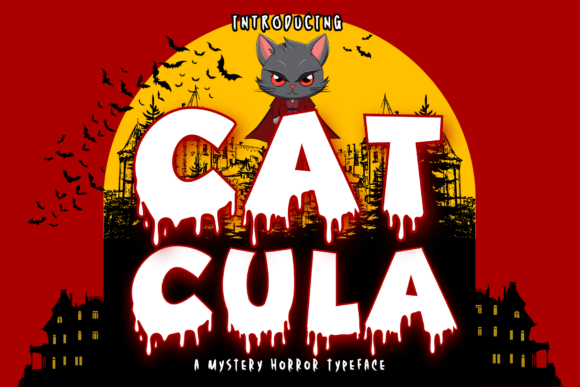
Get Ready to Cast a Spell with the Catcula Font
Have you ever been in the midst of a creative project, pouring over designs and color schemes, only to feel like something’s missing? That’s when the magic happens – you stumble upon the perfect font to bring your vision to life. For designers looking to add a touch of whimsy to their Halloween designs or October-themed celebrations, the Catcula Font is a game-changer. Crafted expressly for the spooky season, this enchanting font is designed to exude a distinctively festive spirit.
As a designer, you know how much a font can elevate your work. That’s why the Catcula Font is a valuable addition to your toolkit. Its playful allure and mysterious charm will beautifully influence the end result, transforming your designs into true showstoppers. Whether you’re working on a haunted house invitation or a spooky-themed social media post, the Catcula Font is the perfect gateway to unleash your creativity.
Catcula Font Key Features
- Character Set: This font features a comprehensive character set, including uppercase and lowercase letters, numbers, punctuation marks, and a variety of special characters, making it suitable for diverse language requirements.
- Unique Characteristics: The Catcula Font boasts a distinctive, modern design with a touch of elegance, making it perfect for use in high-end branding, luxury products, and sophisticated digital applications.
Review: Catcula Font
First impressions are often lasting ones, and when I laid eyes on the Catcula Font, I was immediately struck by its whimsical charm ✨. The playful, hand-drawn feel of this font is perfect for adding a touch of personality to designs that need a little extra flair.
- Expressive and versatile, Catcula Font works well in a variety of contexts, from logos and branding to posters and advertisements.
- Its wide range of styles and weights means designers have plenty of options for customization, allowing them to tailor the font to their specific needs.
- Overall, Catcula Font is a great choice for designers looking to add a unique touch to their projects.
However, there are a few limitations to consider ⚠️. While the font’s expressiveness can be a strength, it can also make it difficult to read in certain situations, such as at smaller sizes or in dense blocks of text.
Additionally, some designers may find the font’s aesthetic too playful or childish for certain projects.
Overall, I would give Catcula Font 4 out of 5 stars. While it may not be the perfect choice for every design project, it’s a great option for those looking to add a little whimsy and personality to their work.
Catcula Font is suitable for:
- Designing elegant headings and titles.
- Creating consistent branding across different platforms.
- Adding a touch of sophistication to your designs.